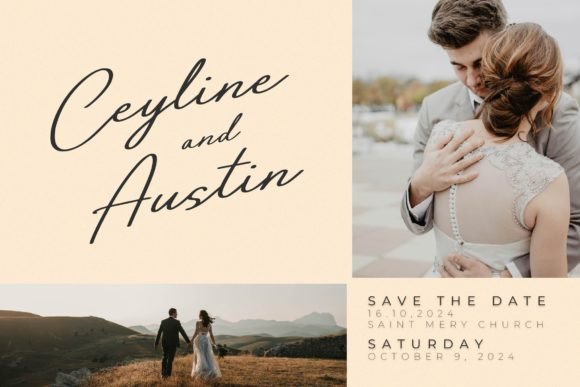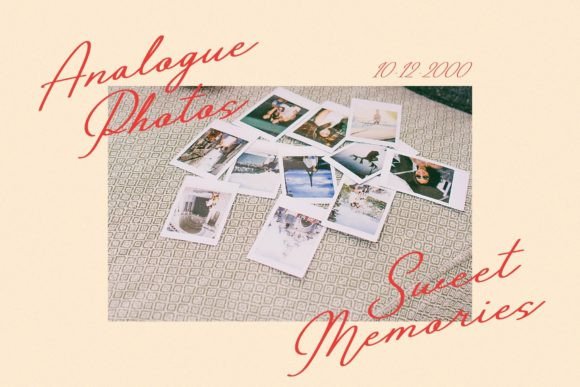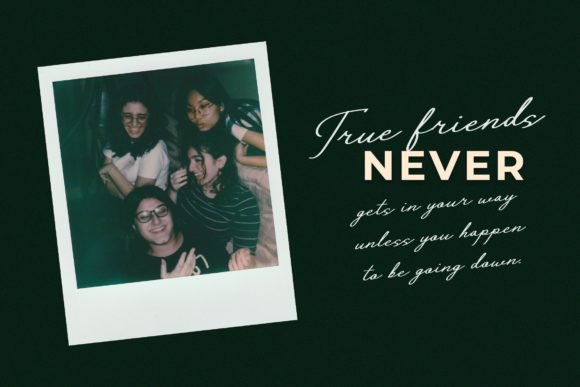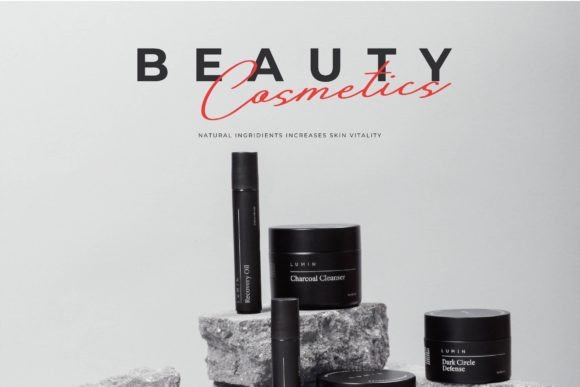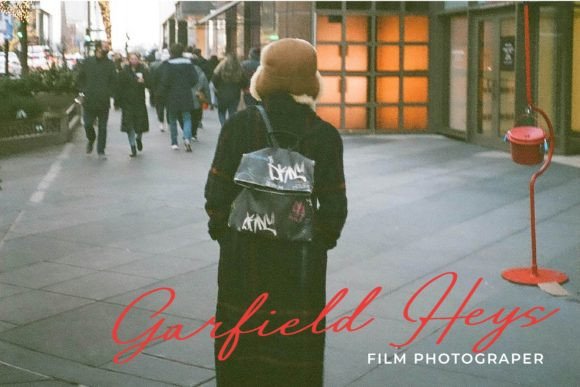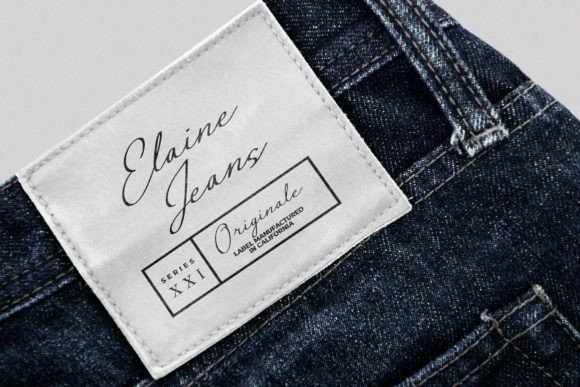
Introduction to Jianshi Hearth Font
Jianshi Hearth is a smooth, elegant font that looks like handwriting.
It has thin, even lines that flow beautifully, making it perfect for signatures, invitations, or anything that needs a personal and stylish touch .